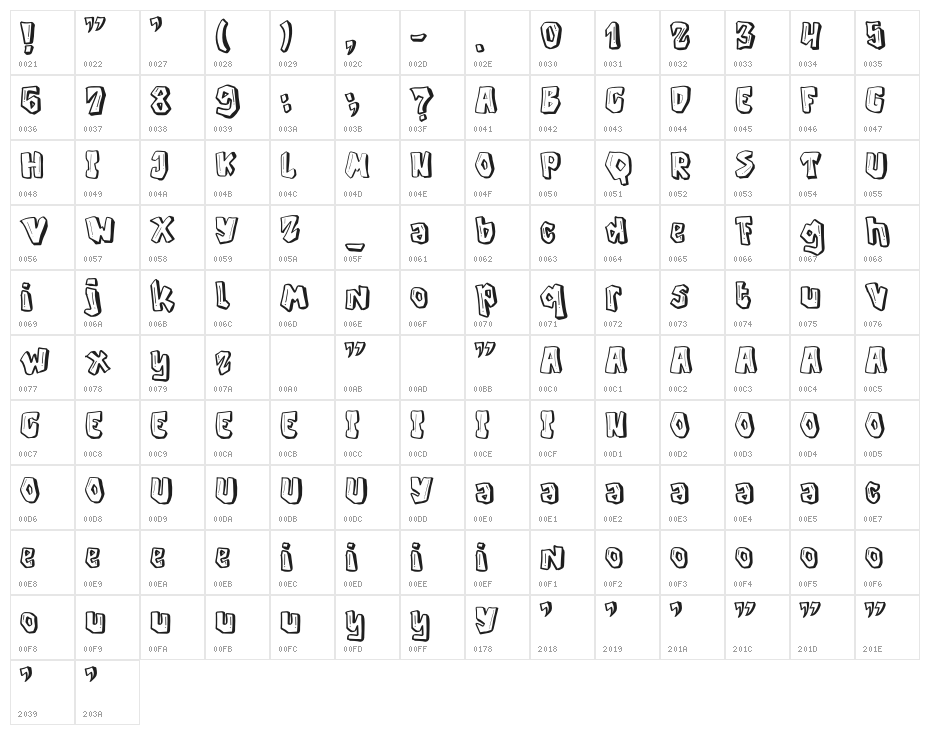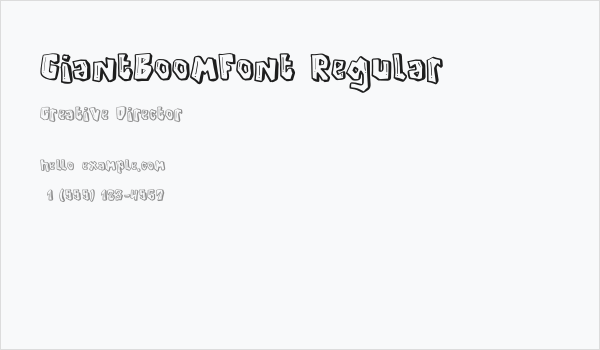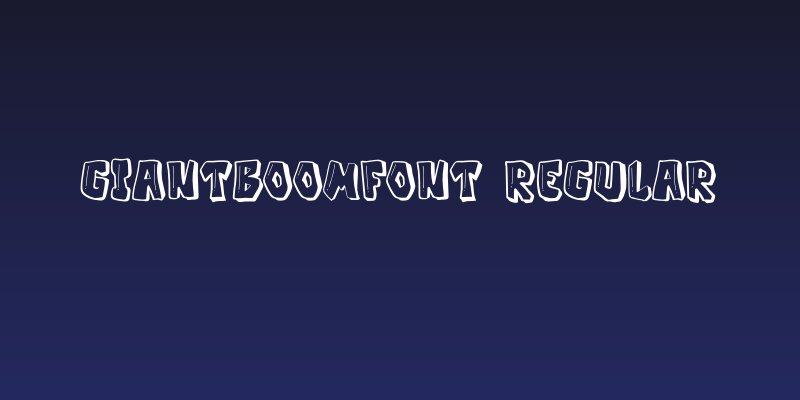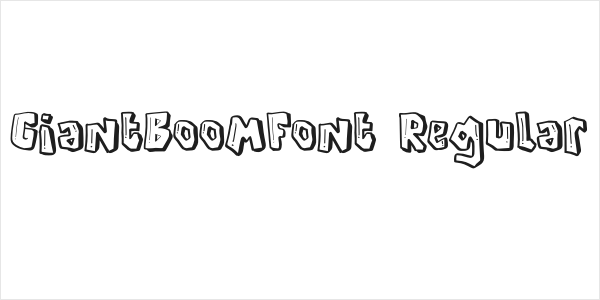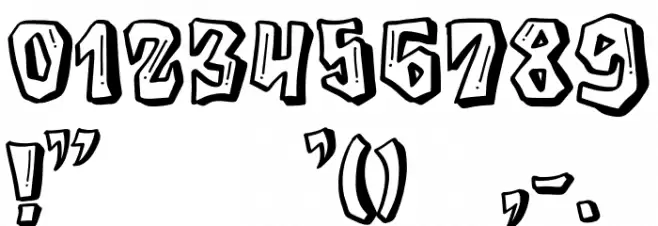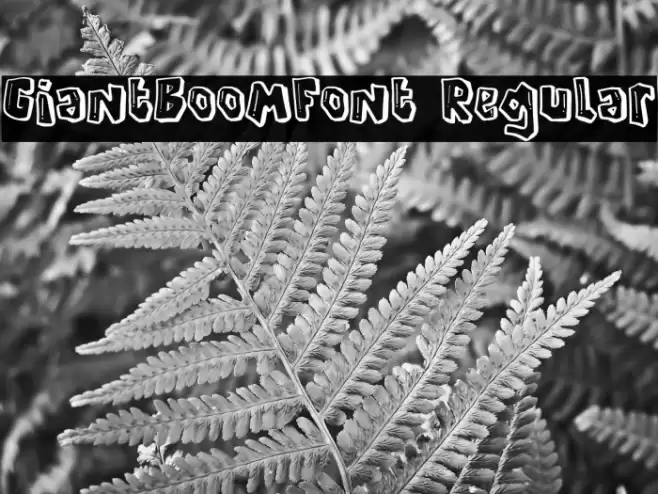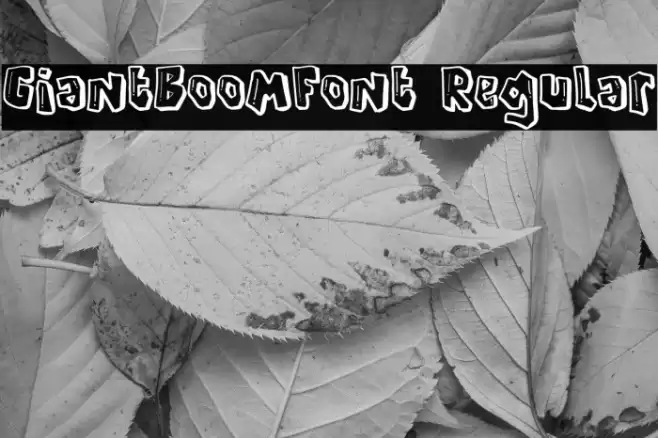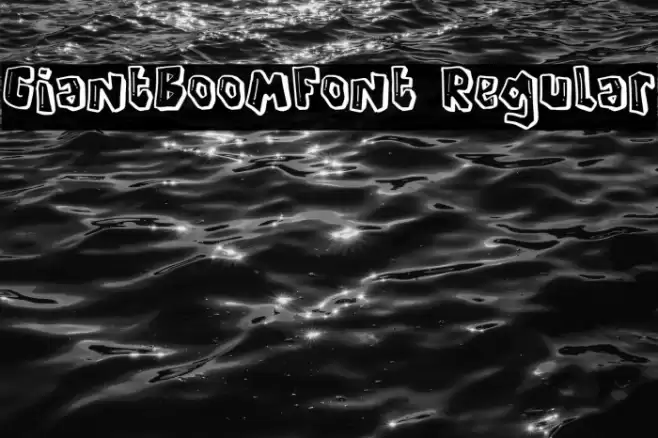
GiantBoomFont Regular Font
GiantBoomFont Regular Description
This font exhibits a bold and playful style with a three-dimensional effect, giving each character a sense of depth and movement. The letters are outlined with a thick black border, enhancing their visibility and making them stand out. The interior of the characters features a subtle texture that adds a hand-drawn, artistic feel. The font's irregular shapes and dynamic angles contribute to its energetic and informal appearance, making it suitable for creative and fun projects. Its unique style is eye-catching and memorable, ideal for designs that require a strong visual impact.
| Overall Style | Playful, Artistic, Energetic |
| Use Case | Headlines, Posters, Branding |
| Proposed Projects | Ideal for comic books, children's books, posters, and playful branding. |